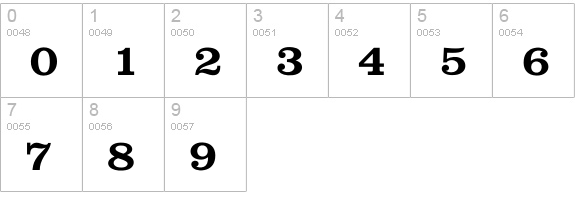
Clarxndon DemiBold Font Details
Clarxndon DemiBold is a sub-bold, structured variant in the Clarxndon typeface family \xE2\x80\x94 well suited to sub-headlines and emphasised passages.